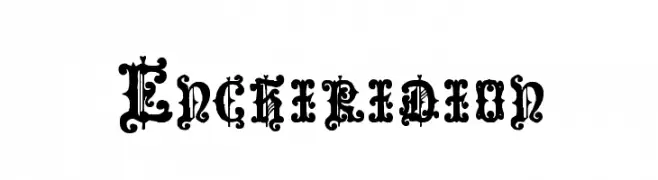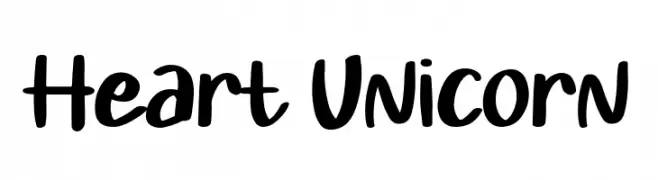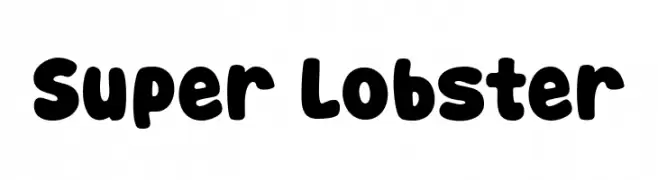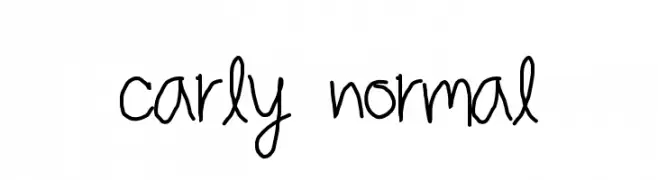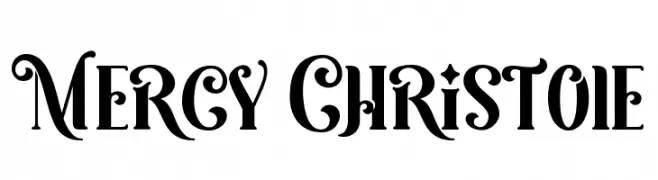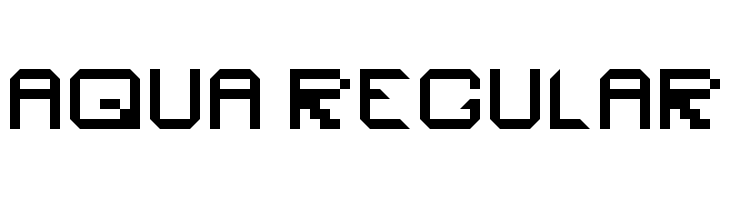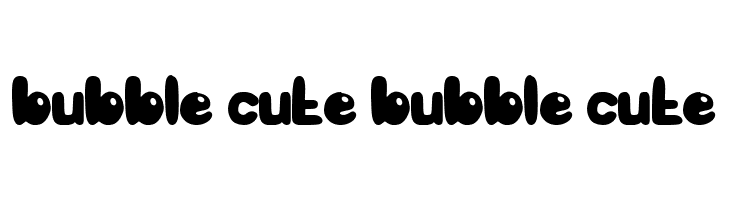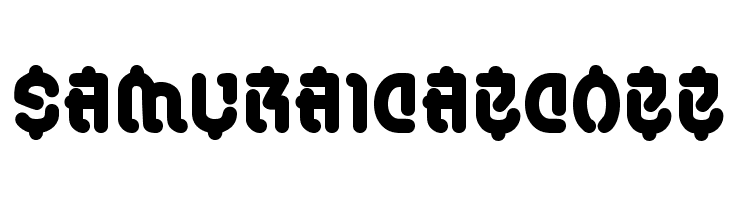
( Fonts by Phantom Studio )
A playful, handwritten font with bold, rounded characters and smooth lines.
( Fonts by fsuarez913 )
A bold, rounded, and playful font with a hand-drawn feel.
A bold, geometric font with strong lines and a modern aesthetic.
( Fonts by HansCo )
A bold, decorative font with intricate, vintage-inspired details.
A bold, jagged font with a horror-inspired, textured design.
( Fonts by David Rakowski )
An ornate, decorative font with intricate swirls and flourishes.
( Fonts by Serge Shi - www.behance.net/positivart )
A modern, geometric font with a clean and precise design.